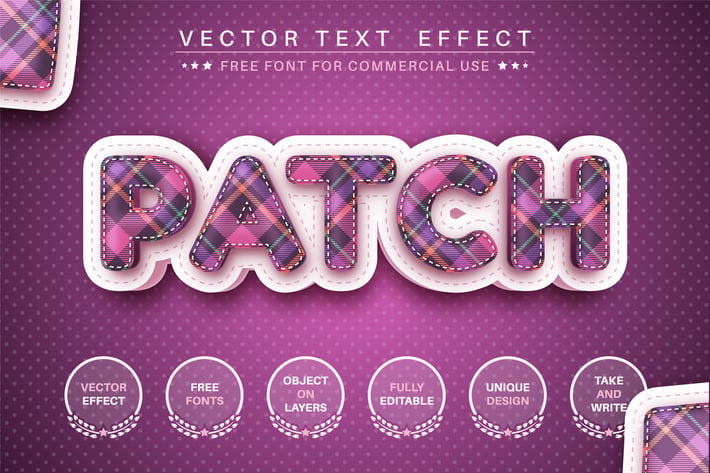
Tartan patch - editable text effect, font style
Hello! I'm happy to introduce my new text effect "Tartan stitch". Just write your word and the effect will apply! Be as creative as you like to be in expressing yourself using this unique “Tartan stitch”. Effect is perfect for any project that needs a unique handy touch whatever else your imagination leads you to!